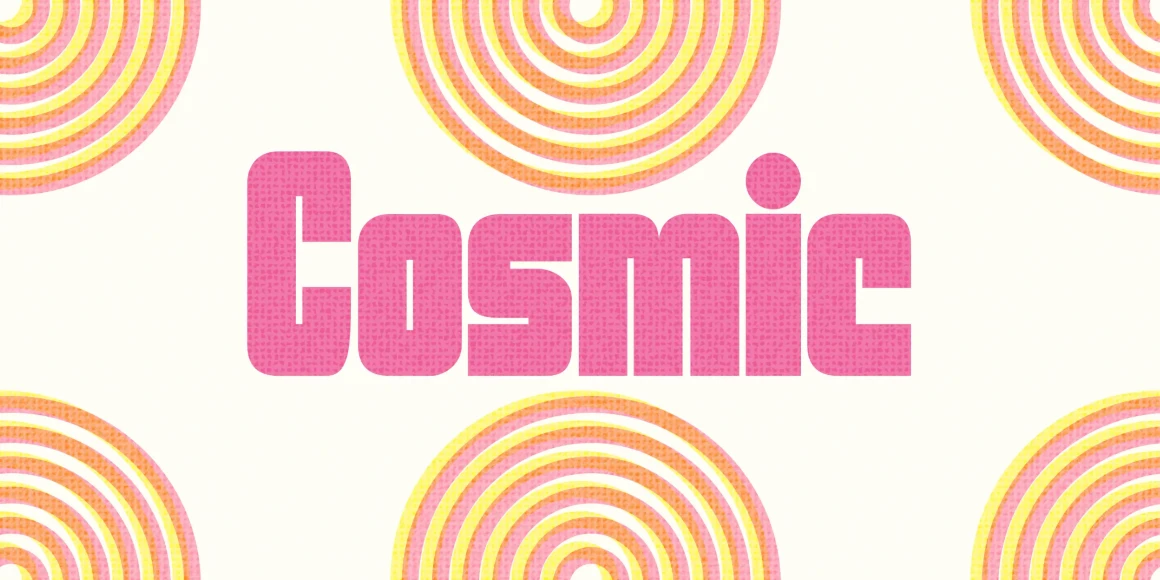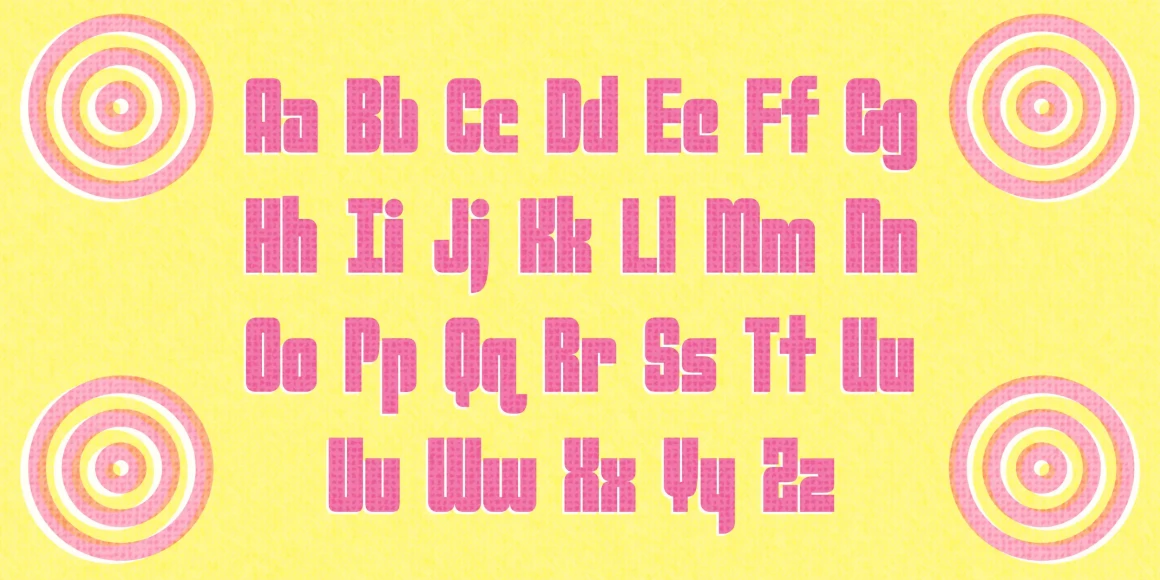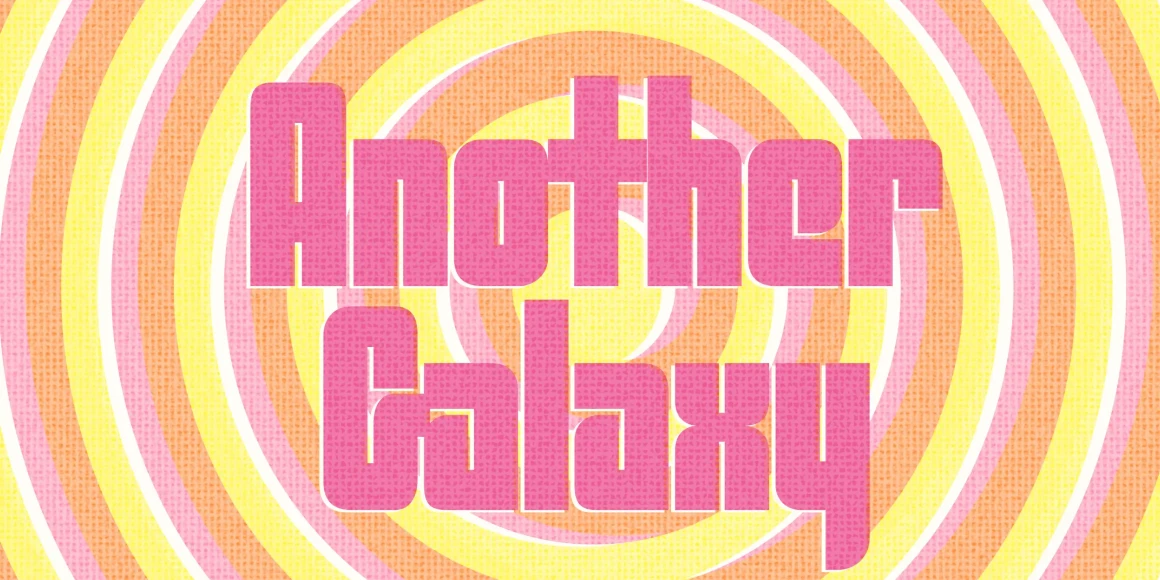
Cosmic
From Chank Co
The Cosmic font is inspired by a Slurpee Chank drank in 1976. “It was cold, it made my tongue pink, and it made my brain hurt,” says Chank. He converted it from memory to font format in 1995.
In 1997, Mister Claes Källarsson made the font bigger and bolder, calling it Sooper Cosmic. Because of the hairline-style negative space, these two fonts looks best at sizes of 60 point and larger.
Designed by Chank Diesel